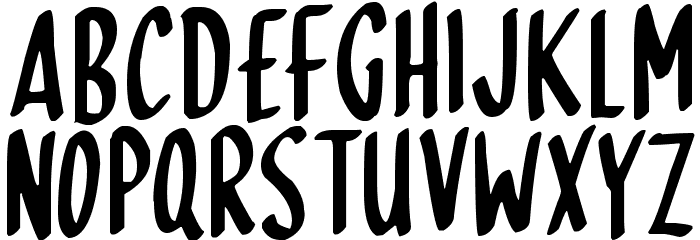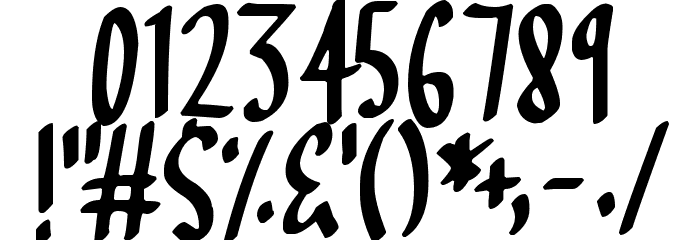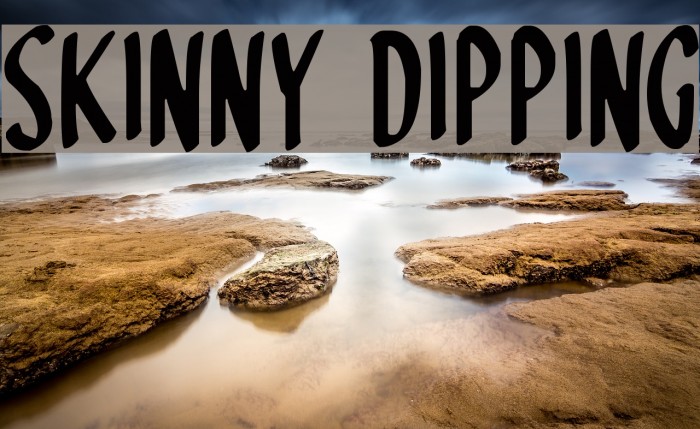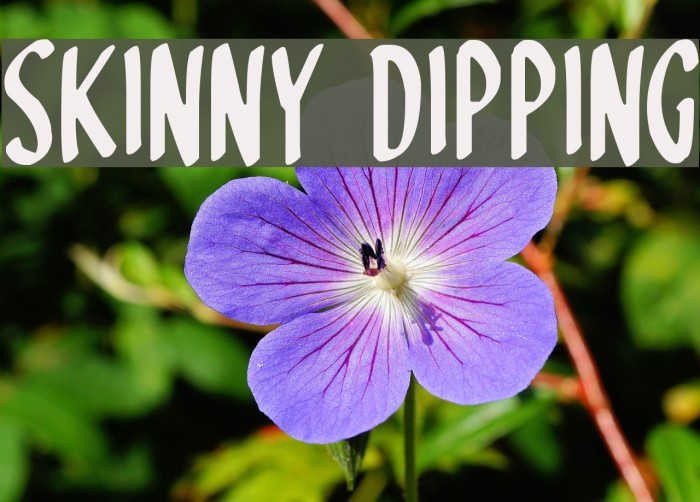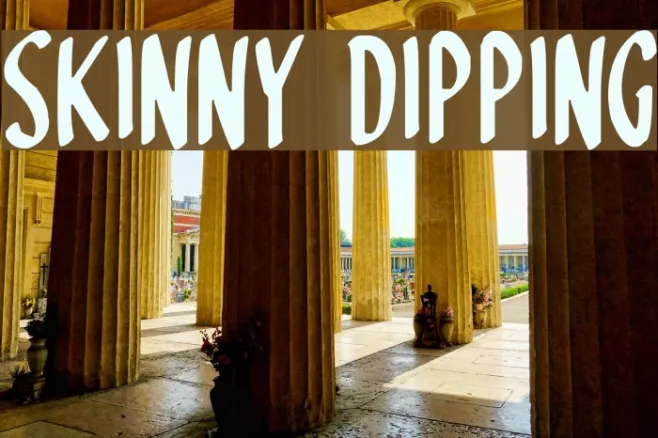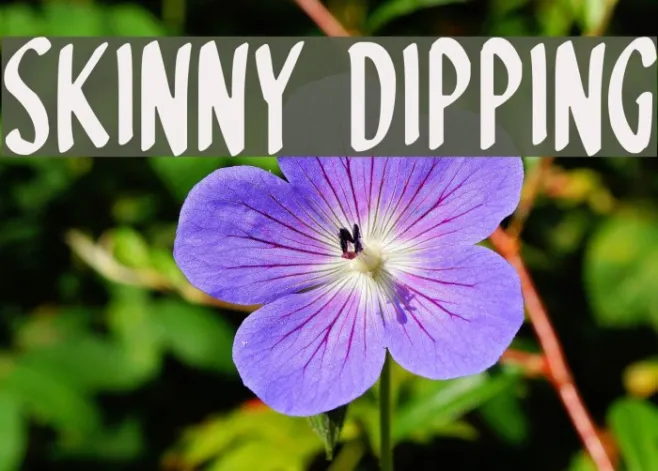
Skinny Dipping Font
This font features a playful and energetic style with a hand-drawn appearance. The letters are bold and slightly irregular, giving them a casual and informal feel. The strokes are thick and consistent, creating a strong visual impact. The characters are slightly condensed, which adds to the dynamic look of the font. The overall style is reminiscent of handwritten notes or doodles, making it suitable for projects that require a personal touch. The font includes a full set of uppercase and lowercase letters, numbers, and a variety of special characters, ensuring versatility in design applications.
A playful, hand-drawn font with bold, irregular strokes and a casual feel.
- Proposed Projects: Ideal for greeting cards, children's books, playful branding, and social media graphics.
- Overall Style: Playful